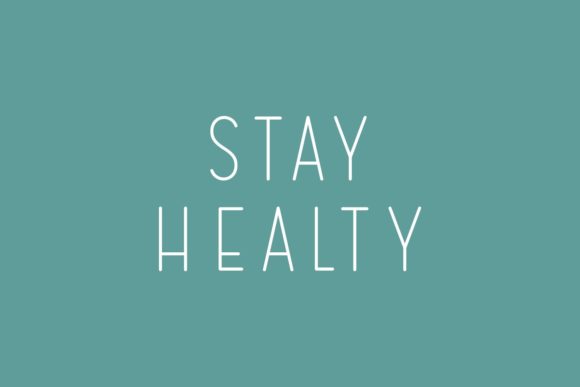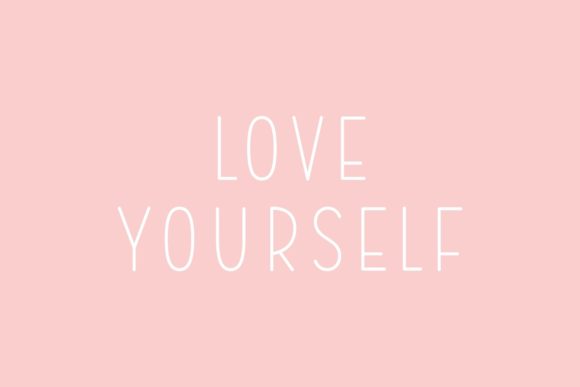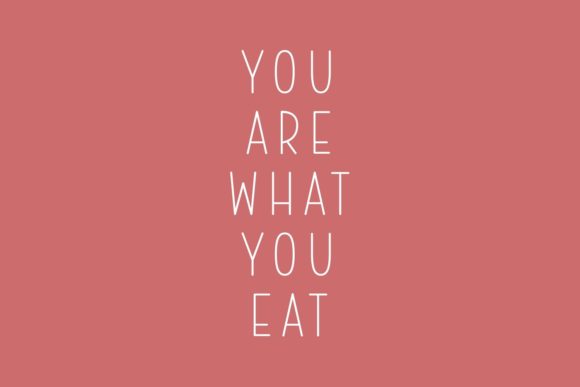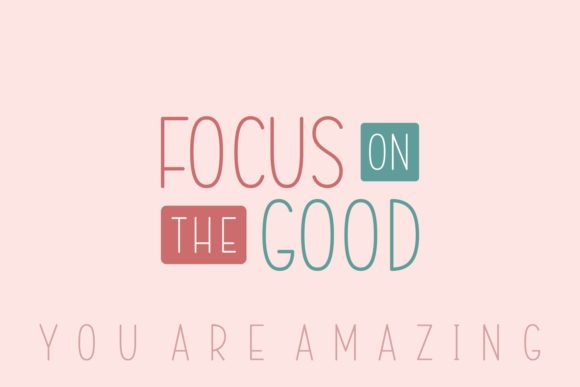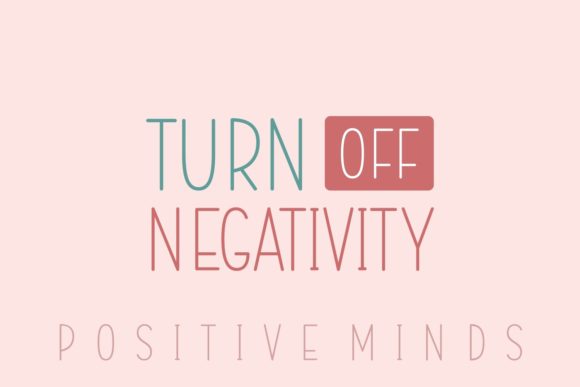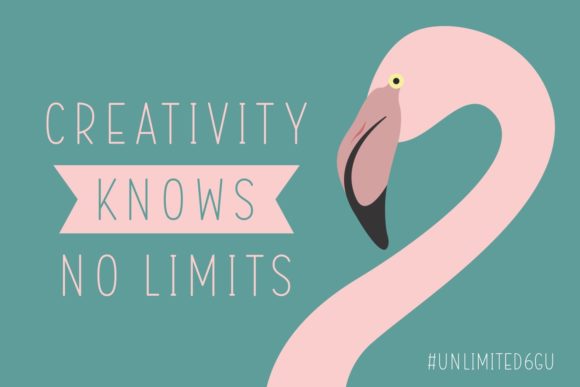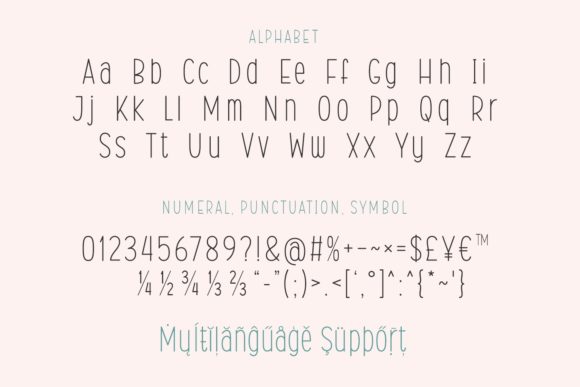
Slenderize Practice Font
About Slenderize Practice Font
The Slenderize Practice is a cute handwritten font, with thin lines and smooth lines. This font is the perfect font to use when adding a personal touch to your designs, and the font is compatible with your cutting machines.